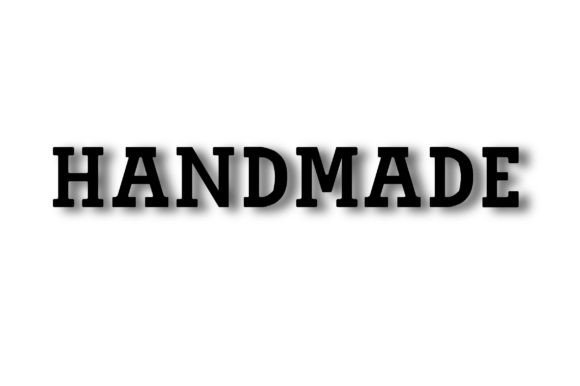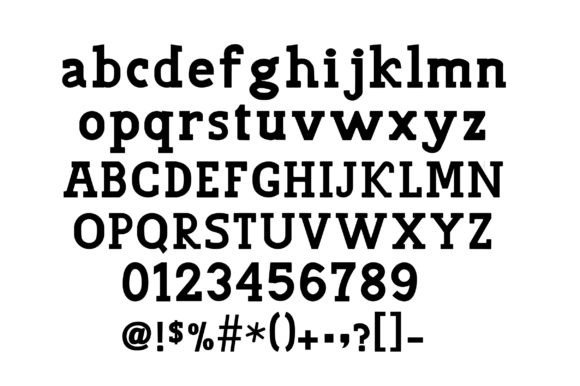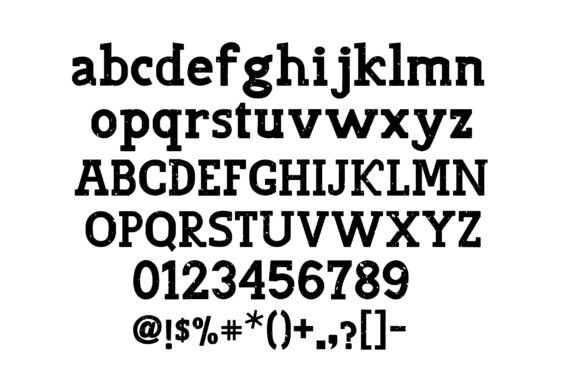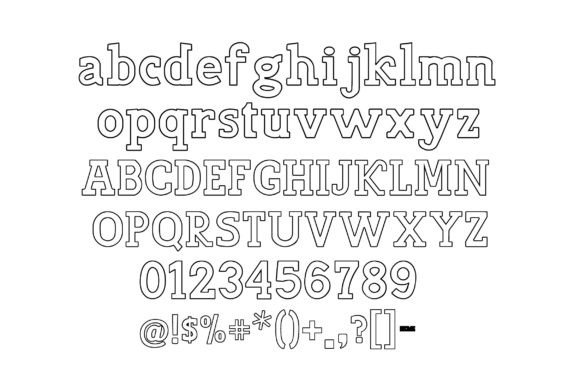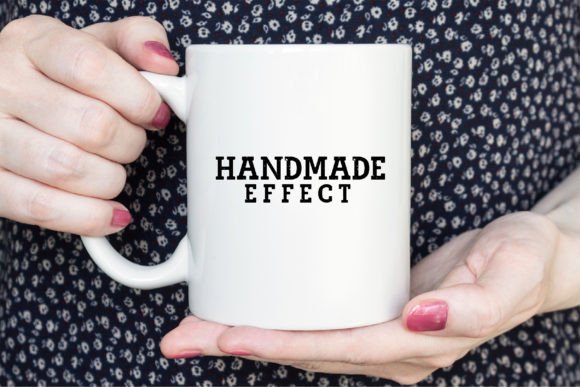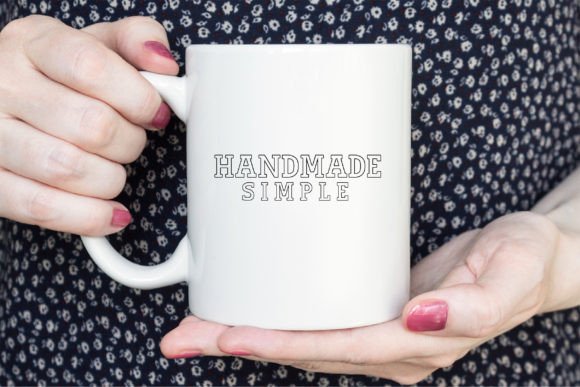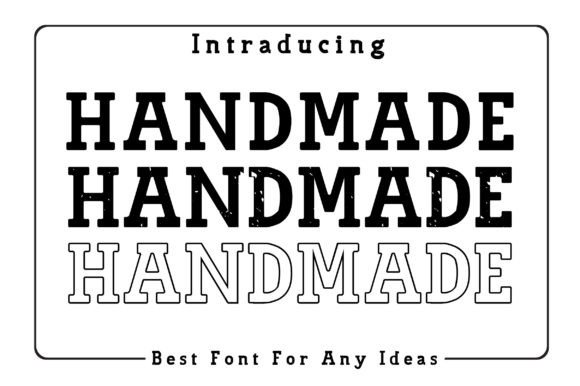
Introducing Handmade Font: The Cute and Playful Slab Serif Font for Your Creative Projects
Are you a designer, crafter, or DIY enthusiast looking for a unique and eye-catching font to elevate your projects? Look no further than Handmade Font, a delightful slab serif font designed to add a touch of playfulness and charm to your creations. With its cute and endearing style, Handmade Font is perfect for a wide range of applications, from mugs and t-shirts to social media posts and product packaging headings.
The Characteristics of Handmade Font
Handmade Font is a slab serif font, characterized by its distinctive rectangular serifs and clean lines. The font’s design is both modern and vintage, making it versatile enough to suit various creative projects. The letters are carefully crafted to convey a sense of friendliness and approachability, making it ideal for brands and designers who want to connect with their audience on a personal level.
Why Choose Handmade Font?
So, what sets Handmade Font apart from other fonts? Here are just a few reasons why you should consider adding it to your font collection:
• Cute and Playful Style: Handmade Font is designed to be fun and engaging, making it perfect for projects that require a touch of whimsy and personality.
• Versatility: This font is suitable for a wide range of applications, from digital media to print materials.
• Ease of Use: Handmade Font is easy to read and works well in various contexts, making it a great choice for designers and crafters of all levels.
• Unique and Eye-Catching: With its distinctive slab serif design, Handmade Font is sure to grab attention and make your projects stand out.
Use Cases for Handmade Font
Handmade Font is an incredibly versatile font that can be used in a variety of creative projects. Here are some ideas to get you started:
• Mugs and Ceramics: Add a personal touch to your mugs, cups, and other ceramic products with Handmade Font.
• T-Shirts and Baby Shirts: Create adorable and eye-catching designs for t-shirts, baby shirts, and other apparel.
• Social Media Posts: Use Handmade Font to add a playful touch to your social media posts and make them more engaging.
• Product Packaging: Elevate your product packaging with Handmade Font, perfect for headings and titles.
• Covers and Titles: Use Handmade Font to create beautiful and eye-catching covers and titles for your books, magazines, or digital publications.
Tips for Using Handmade Font
To get the most out of Handmade Font, here are some tips to keep in mind:
• Experiment with Colors: Handmade Font works well with a variety of colors, so don’t be afraid to experiment and find the perfect combination for your project.
• Play with Sizes: This font looks great in various sizes, from small headings to large titles.
• Mix and Match: Combine Handmade Font with other fonts to create a unique and interesting design.
Handmade Font is a delightful and versatile slab serif font that’s perfect for designers, crafters, and DIY enthusiasts. With its cute and playful style, this font is sure to add a touch of personality and charm to your creative projects. Whether you’re working on mugs, t-shirts, social media posts, or product packaging headings, Handmade Font is a great choice. So why not give it a try and see the amazing results for yourself?
With Handmade Font, you can:
• Create unique and eye-catching designs that stand out from the crowd.
• Add a personal touch to your projects and connect with your audience.
• Experiment with various colors, sizes, and font combinations to find the perfect look for your project.